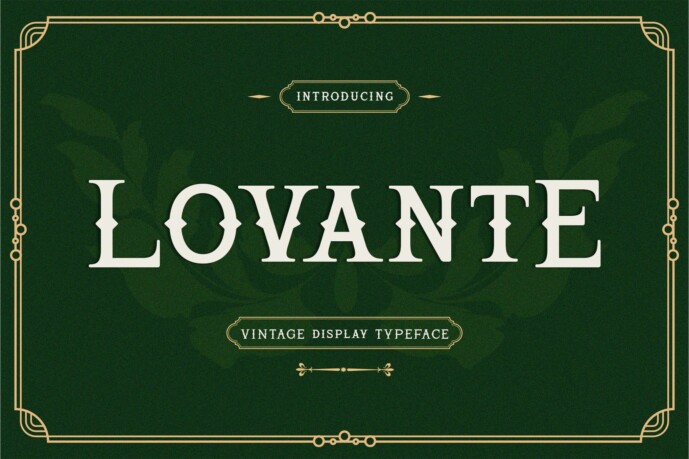
Lovante Font
Designer: ALMR_STD
Introducing Lovante – Vintage Display Serif Font. Lovante is a vintage display serif font, This type of font is very suitable for your various needs such as branding projects, logos, social media posts, advertisements, labels, product packaging, photography, wedding designs, watermarks, invitation product designs, stationery, and any project.